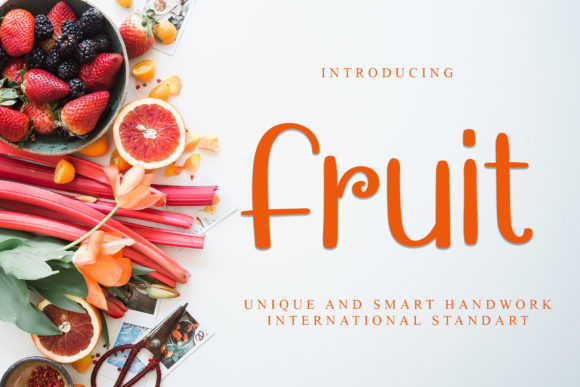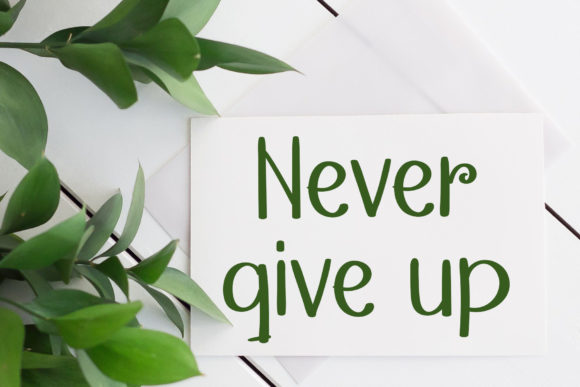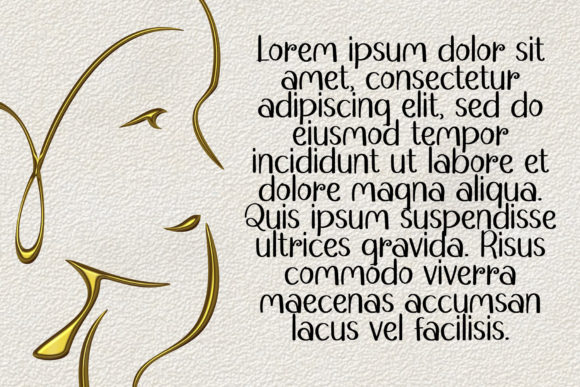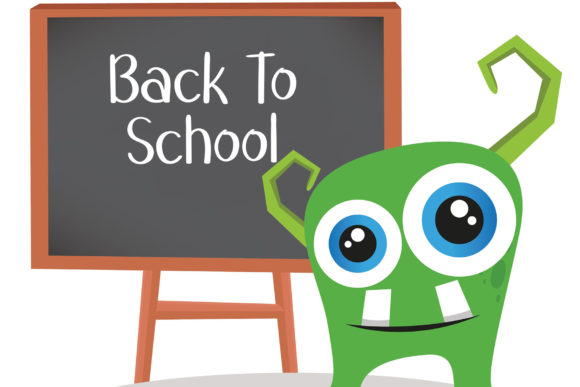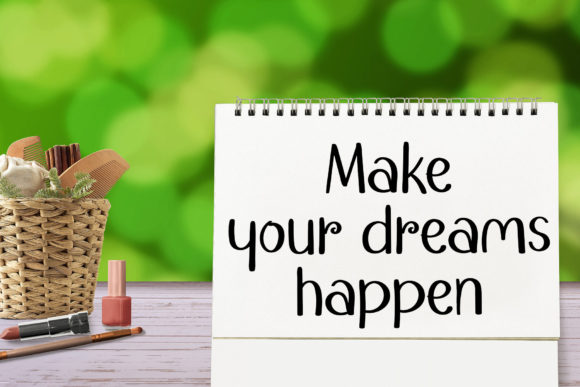
About Fruit Font
Fruit is a beautiful handwritten font. Perfect for wedding invitations, greeting cards, billboards, logos, business cards, and any other design that requires a handwritten touch. This font features a varied baseline, and it is a carefully crafted font to help you design spectacular things!